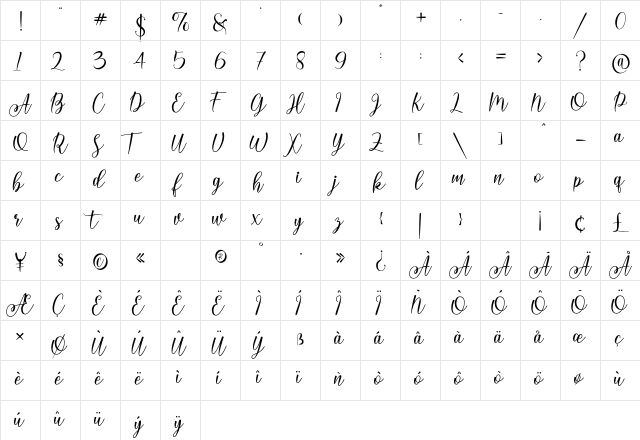
Lover Bunny Personal use Script Regular
| Foundry | Ardyana Types Studio |
| Designer | Ardyana Types |
Design Context for Lover Bunny Personal use Script Typeface
Lover Bunny Personal use Script flows with the natural rhythm of handwritten lettering, making it ideal for designs that call for warmth and personal expression.
Font Pairing: Combine Lover Bunny Personal use Script with a simple geometric sans for maximum contrast — the tension between flowing curves and clean structure is a classic typographic pairing.
Pro Tip: Pair Lover Bunny Personal use Script with a clean sans-serif for supporting text. The contrast between fluid script and geometric structure creates an elegant typographic hierarchy.